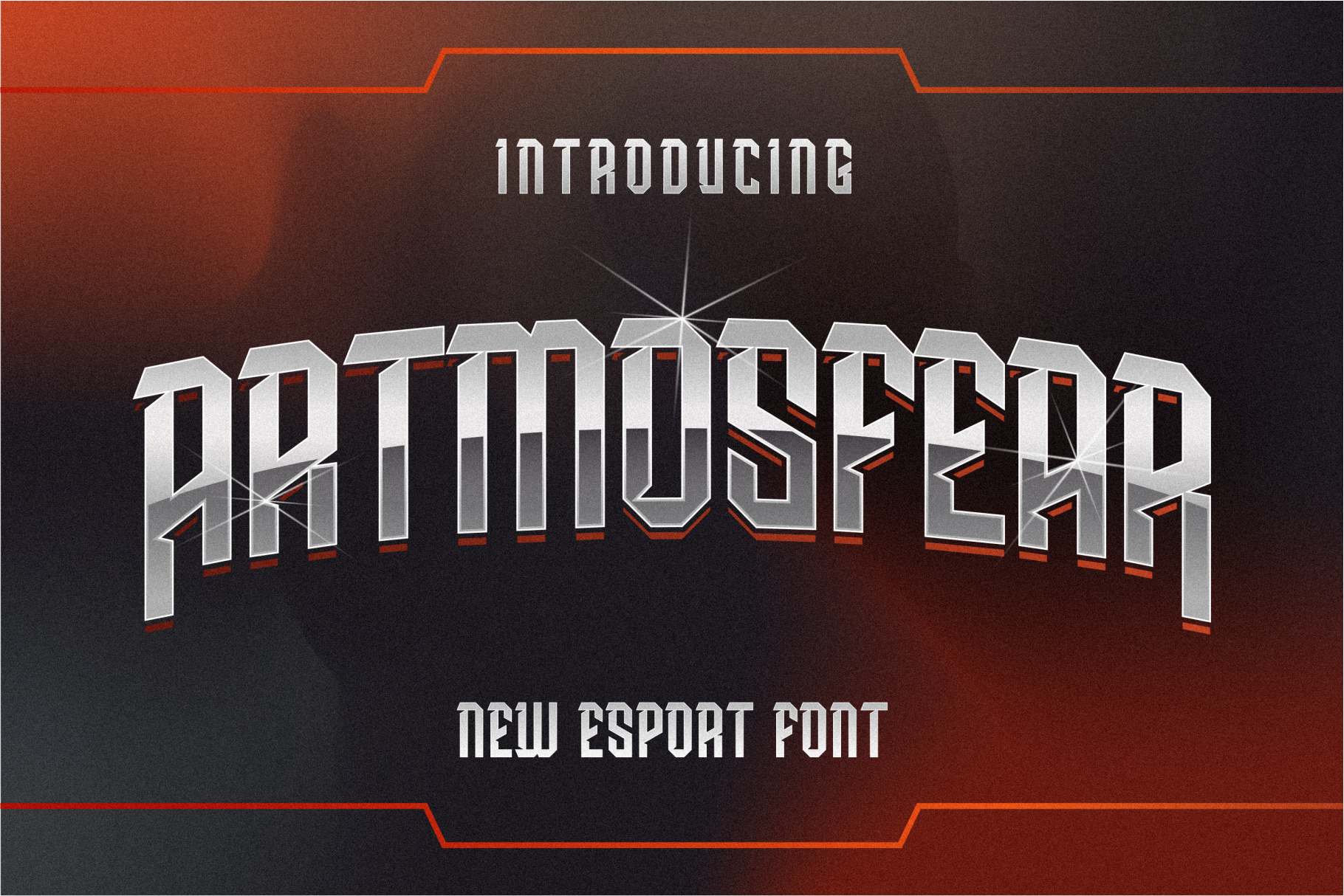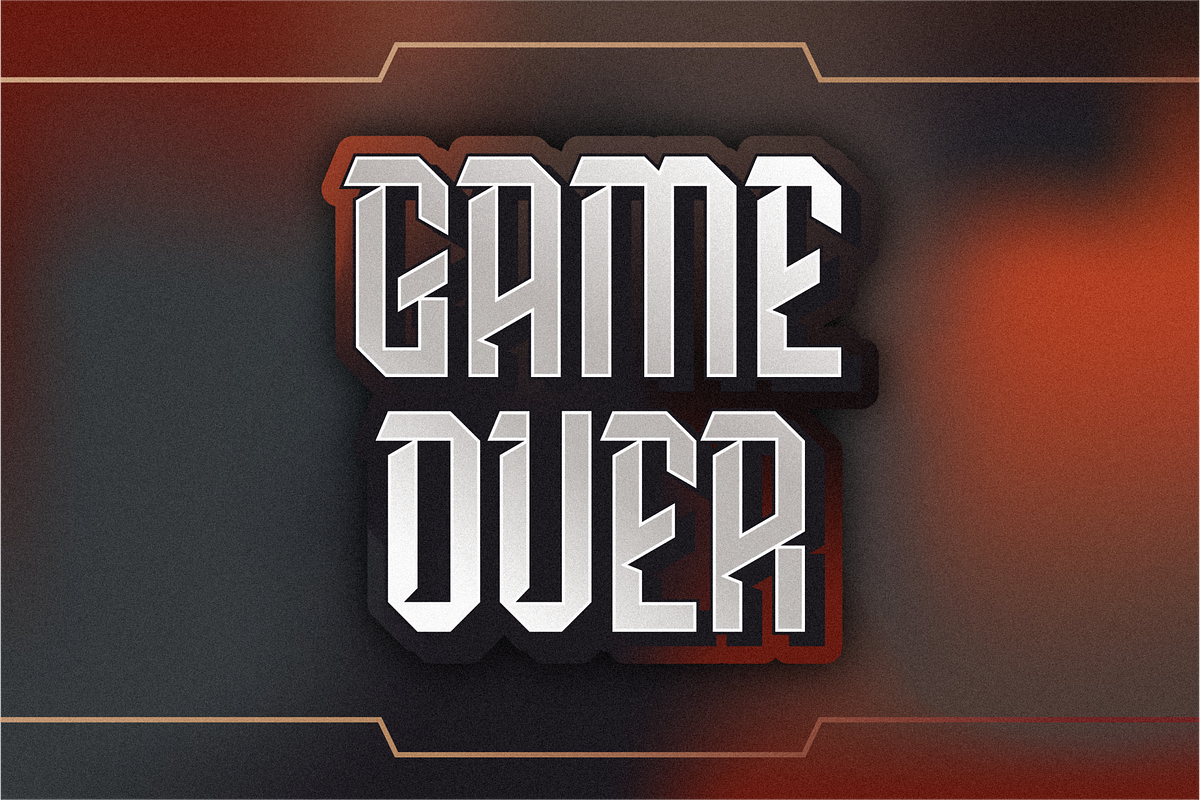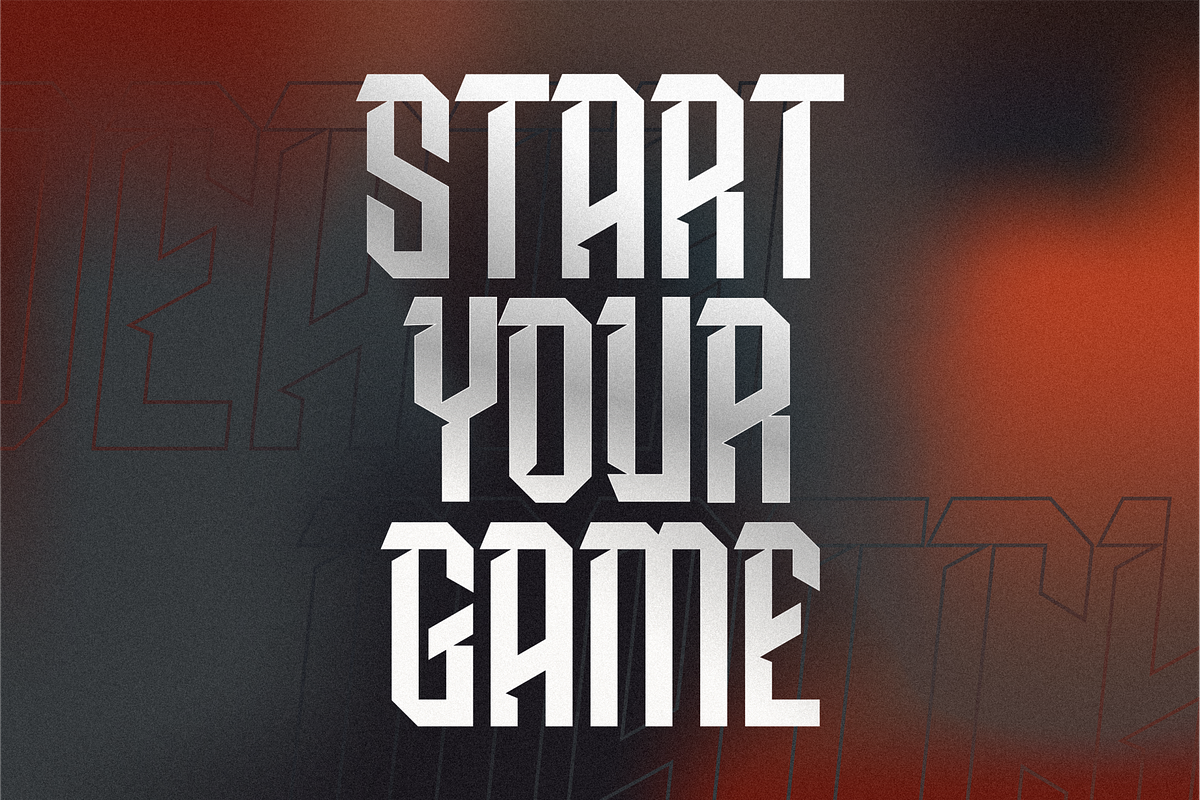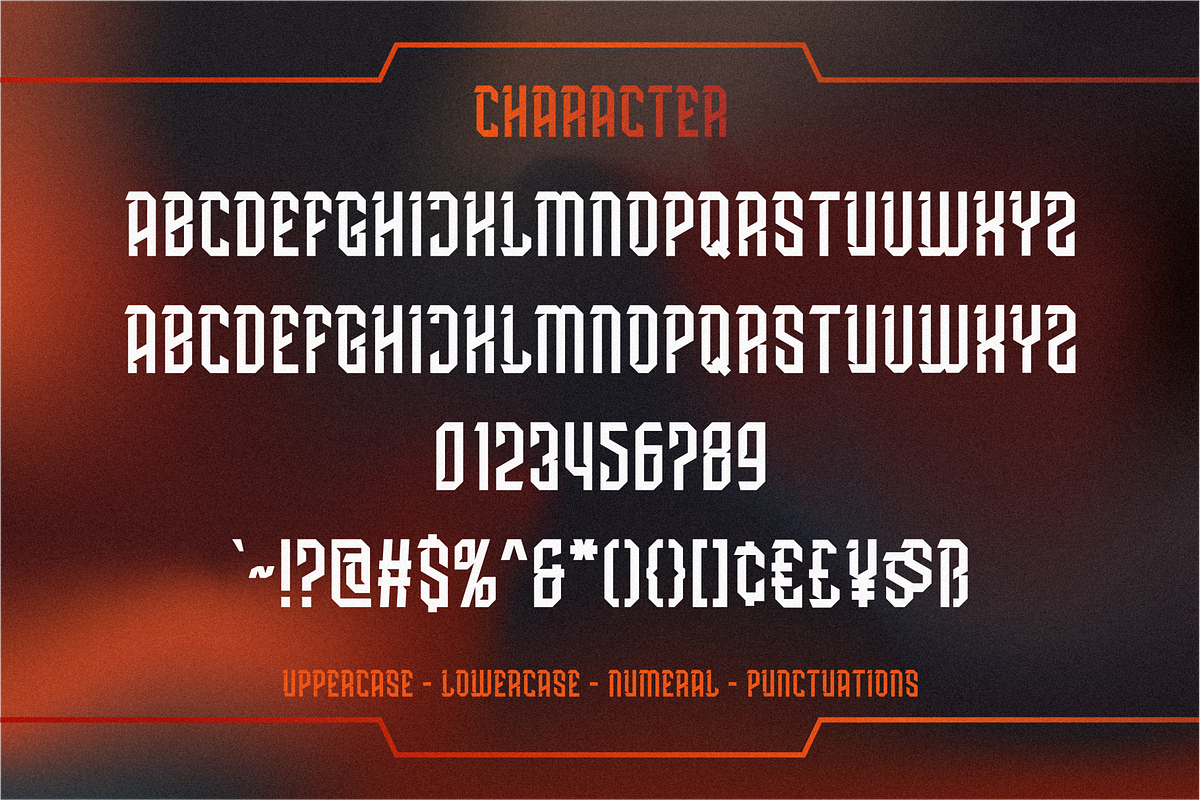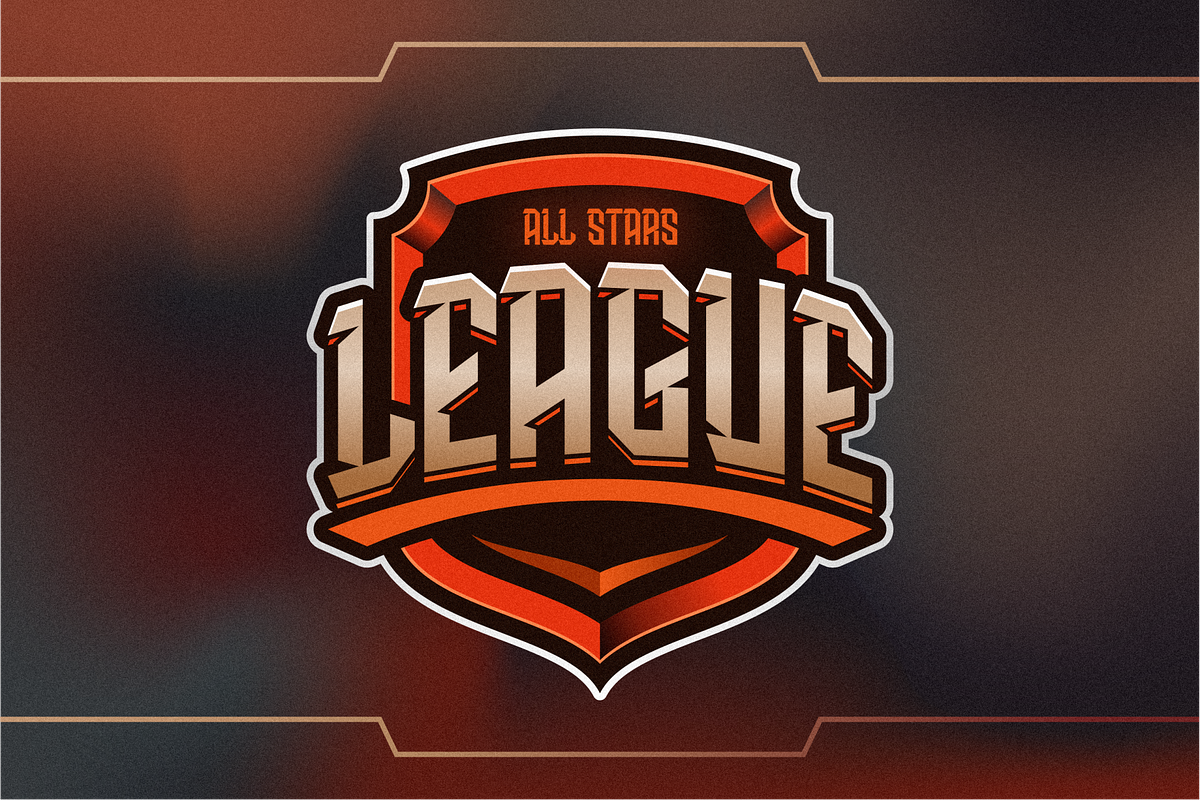
ARTMOSFEAR DISPLAY FONT
ARTMOSFEAR is a font created with a modern and sophisticated touch. ARTMOSFEAR is perfect for logo design, gaming / esport, sports, apparel, promo and large headline uses. With added punctuation, it's more than just your basic A-Z/a-z/0-9, which means you can use it for more pieces, such as social media, ads, game programs, etc.